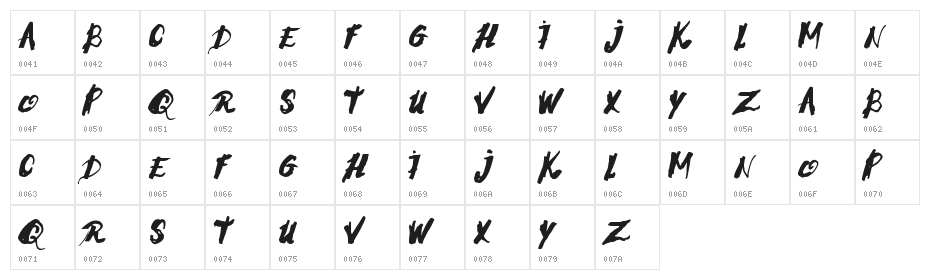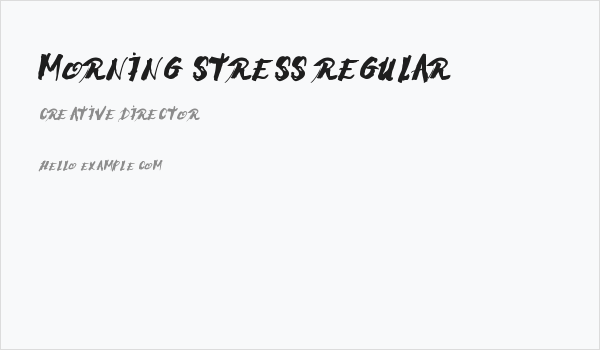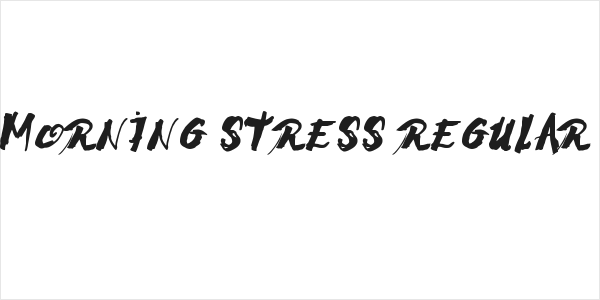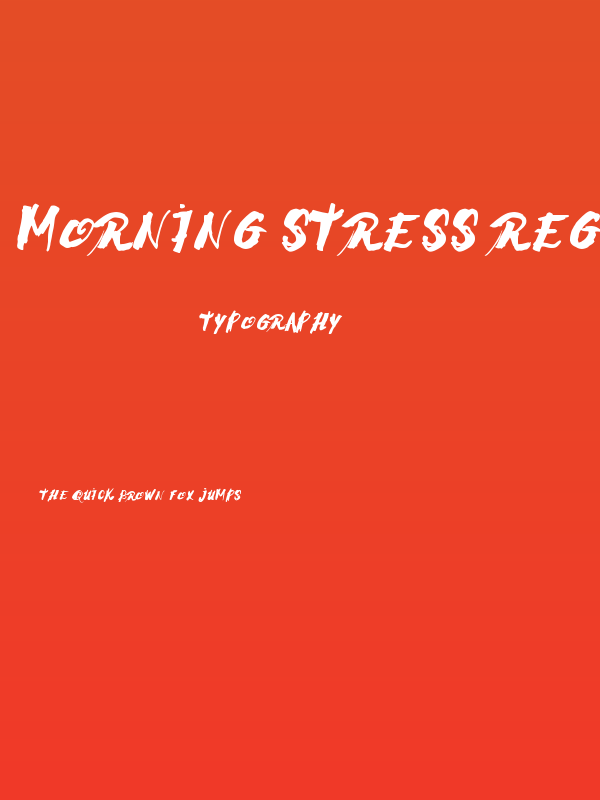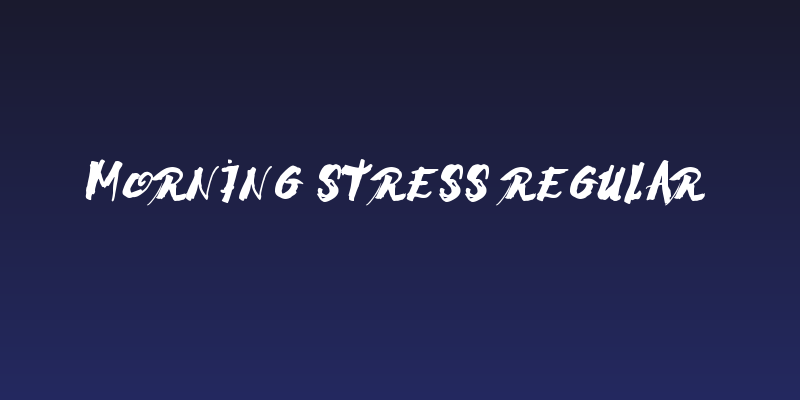
Morning Stress Regular Font
Morning Stress Regular Description
This font exudes a dynamic and energetic vibe with its bold, brush-like strokes. The letters are crafted with a sense of movement, giving them a lively and expressive appearance. The uppercase and lowercase characters maintain a consistent style, with some letters featuring unique flourishes that add to the overall artistic feel. The numbers and special characters are equally bold, ensuring a cohesive look across all elements. This font's design is perfect for projects that require a touch of creativity and flair, making it ideal for artistic and expressive applications.
| Overall Style | Modern, Artistic |
| Proposed Projects | Ideal for posters, album covers, artistic branding, and creative advertising. |